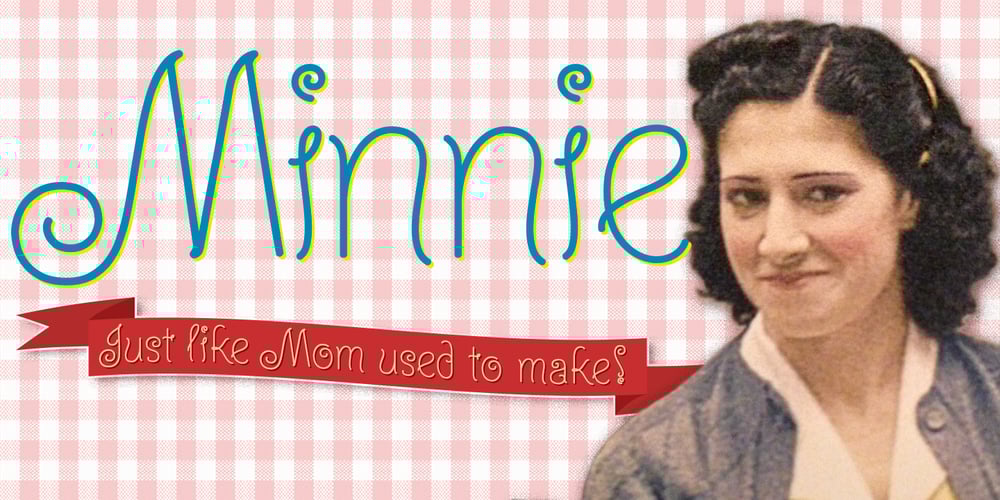
Minnie
Minnie font
Minnie Font Family was designed by James A. Lebbad and published by Lebbad Design. Minnie contains 1 styles and family package options. Minnie is a clean monoline upright script. This fun-loving font is great for headline display and text use. It comes with numerous alternate characters.